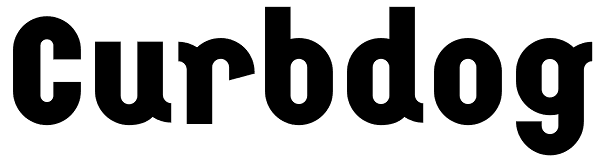
Curbdog
Curbdog is a bold, playful display face with light horizontals and curved terminals in the italics.
Curbdog Condensed Regular
Curbdog
Curbdog Italic